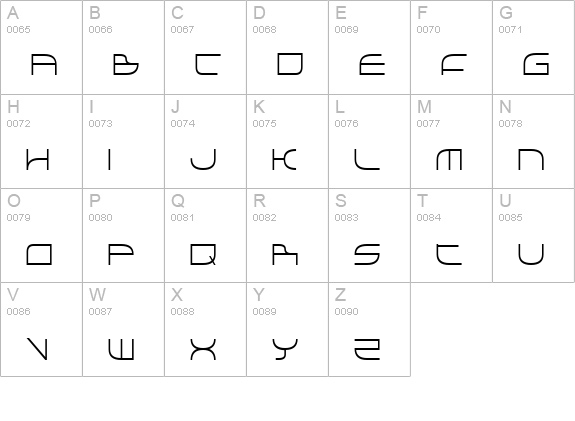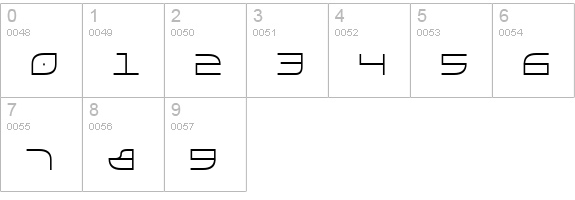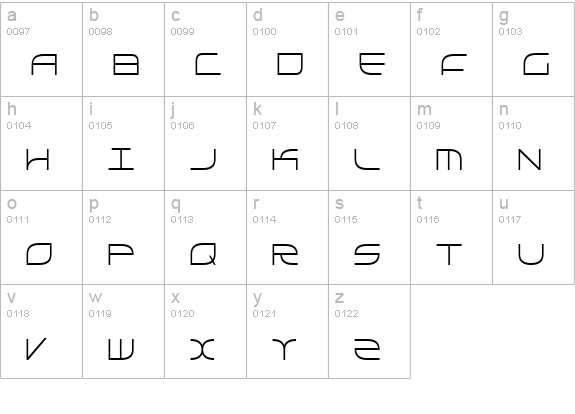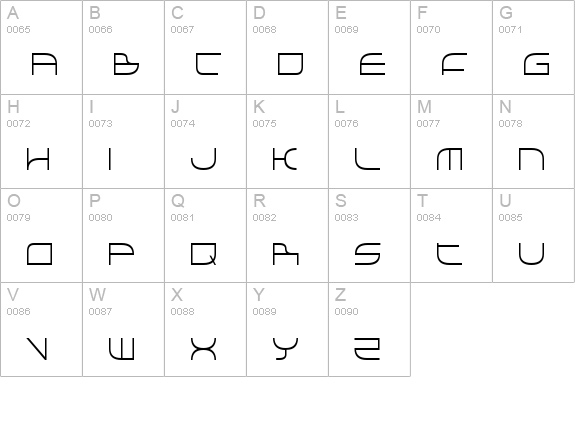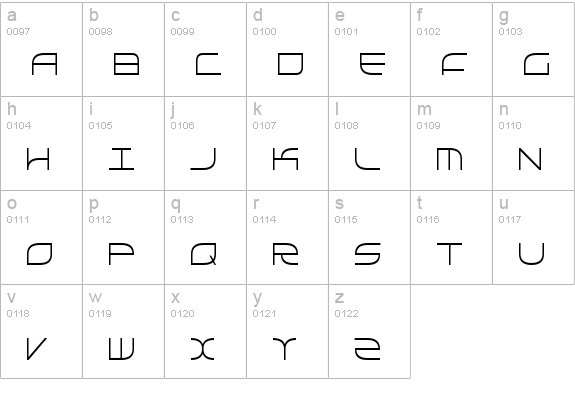
Galga Condensed is a distinctive, condensed-width variant in the Galga typeface family \xE2\x80\x94 well suited to design and typography projects.
Galga Condensed is a modern and sleek typeface that exudes elegance and sophistication. With its clean lines and balanced proportions, this font is perfect for creating professional and eye-catching designs. The condensed style of Galga allows for more text to fit in a limited space without sacrificing readability. This versatile font is suitable for a wide range of design projects, including logos, branding, packaging, headlines, and more. Its timeless appeal makes it a great choice for both digital and print media. The best part? Galga Condensed is available for free download at FontsMarket.com, making it accessible to designers of all levels. Don't miss out on this amazing opportunity to enhance your design projects with this beautiful typeface. Download Galga Condensed today and take your designs to the next level!